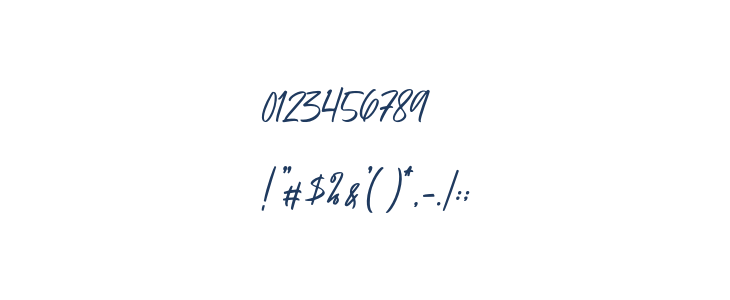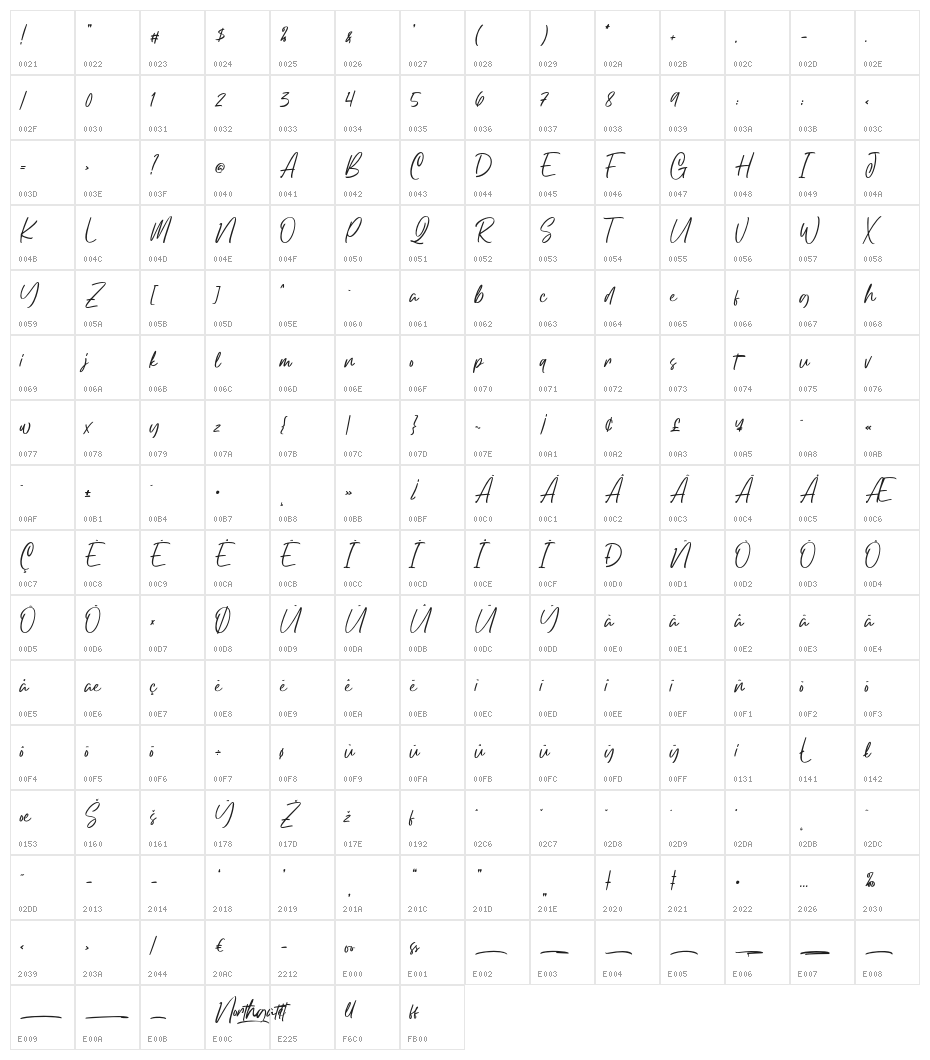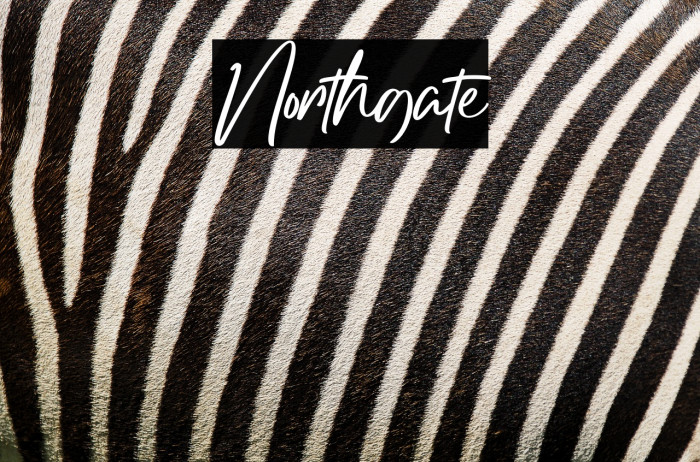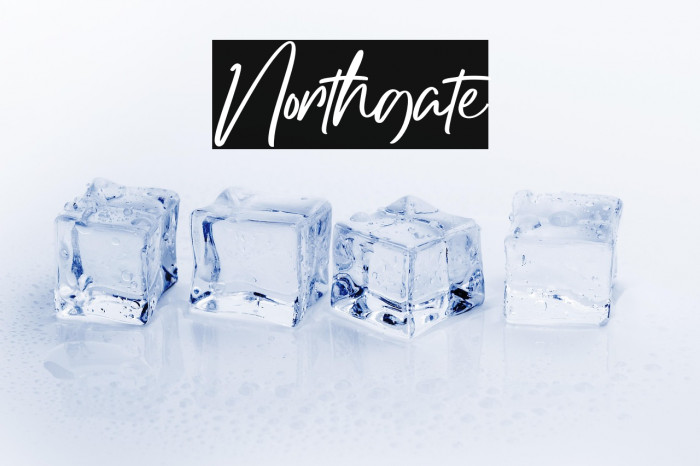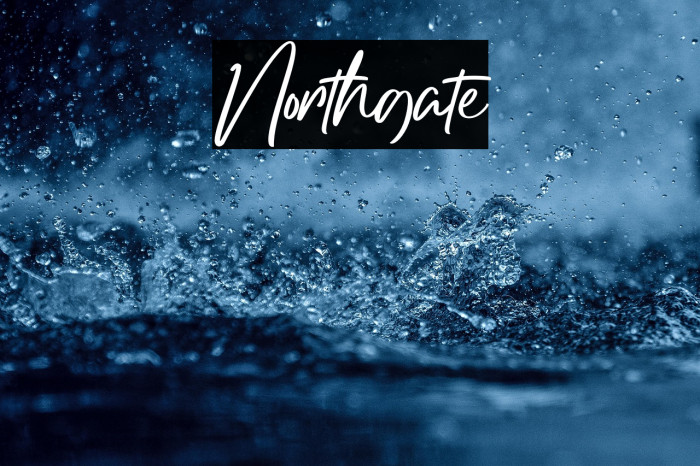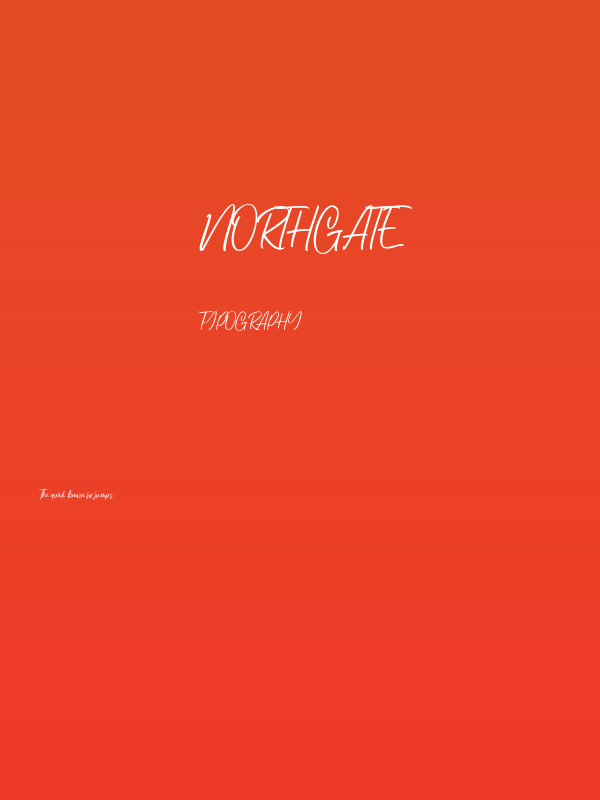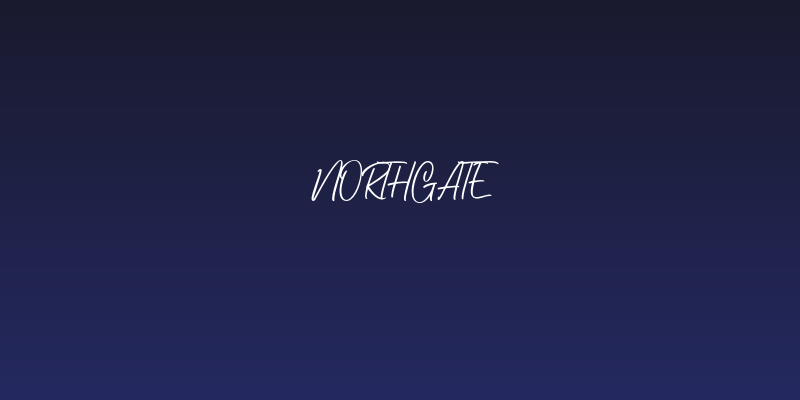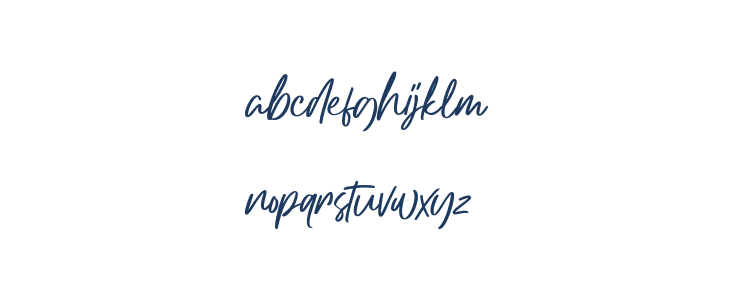
Northgate Font
Northgate Description
This font exudes a lively and expressive character with its handwritten style, featuring fluid and dynamic strokes that convey a sense of movement and personality. The uppercase letters are bold and slightly slanted, adding a touch of elegance and flair. The lowercase letters maintain a consistent flow, enhancing readability while preserving the artistic essence. Numbers and special characters are crafted with the same attention to detail, ensuring a cohesive look throughout. The overall design is perfect for projects that require a personal and creative touch, making it ideal for invitations, branding, and artistic endeavors.
| Use Case | Logos, Headlines, Artistic projects |
| Proposed Projects | Ideal for invitations, branding, artistic projects, and any design needing a personal, creative flair. |